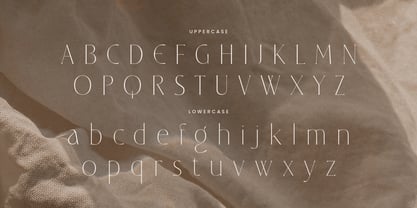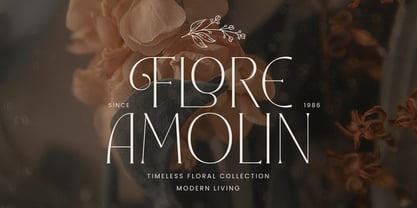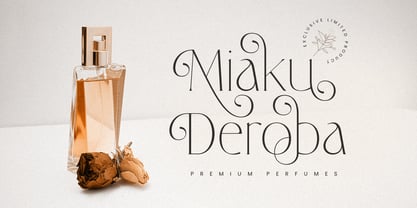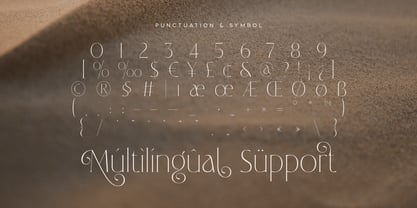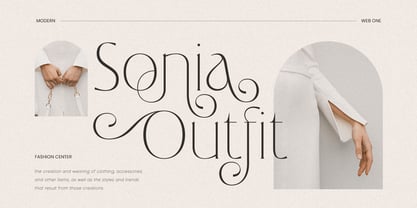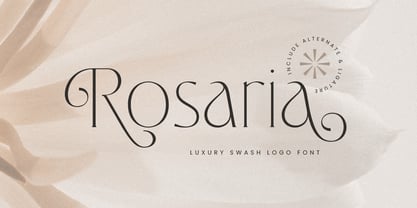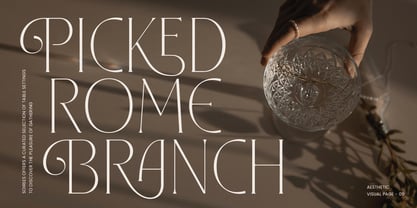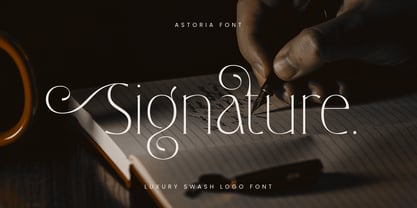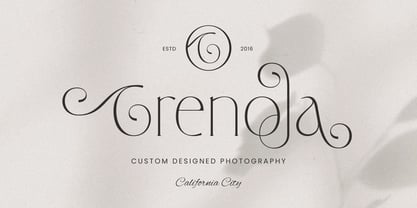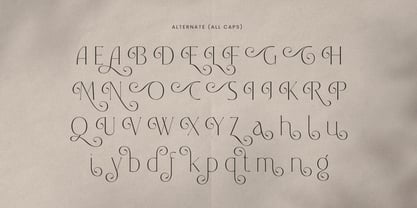
Rosaria
by Sensatype Studio
The Rosaria Font Family was designed by Zamroni Hamzah and published by Sensatype Studio. Rosaria contains 2 styles and family package options. More about this family
Astoria - Luxury Swash Logo Font
Astoria is a luxury swash font designed for those who seek elegance and sophistication in their branding. With its graceful swashes and refined letterforms, Astoria brings a touch of class to any logo design or high-end project. The font’s luxurious feel makes it perfect for upscale brands, premium products, and elegant invitations.
Inspired by classic calligraphy, Astoria combines traditional beauty with a modern twist. Its flowing curves and sophisticated swashes give it a timeless appeal, while its versatility allows it to shine in various applications. Whether you're crafting a stunning logo or enhancing your branding materials, Astoria delivers a distinctive and polished look.
Astoria offers unique ligatures and alternate characters, providing endless creative possibilities. Its attention to detail ensures that every letter is a work of art, making your designs stand out with elegance and grace.
Astoria Luxury Swash Logo Font Features:
• Luxury Ligature & Alternative Characters Ready
• Unique Punctuation, Number, and Symbol
• Uppercase and Lowercase
• Multilingual Support
• Opentype Features
Designers: Zamroni Hamzah
Foundry: Sensatype Studio